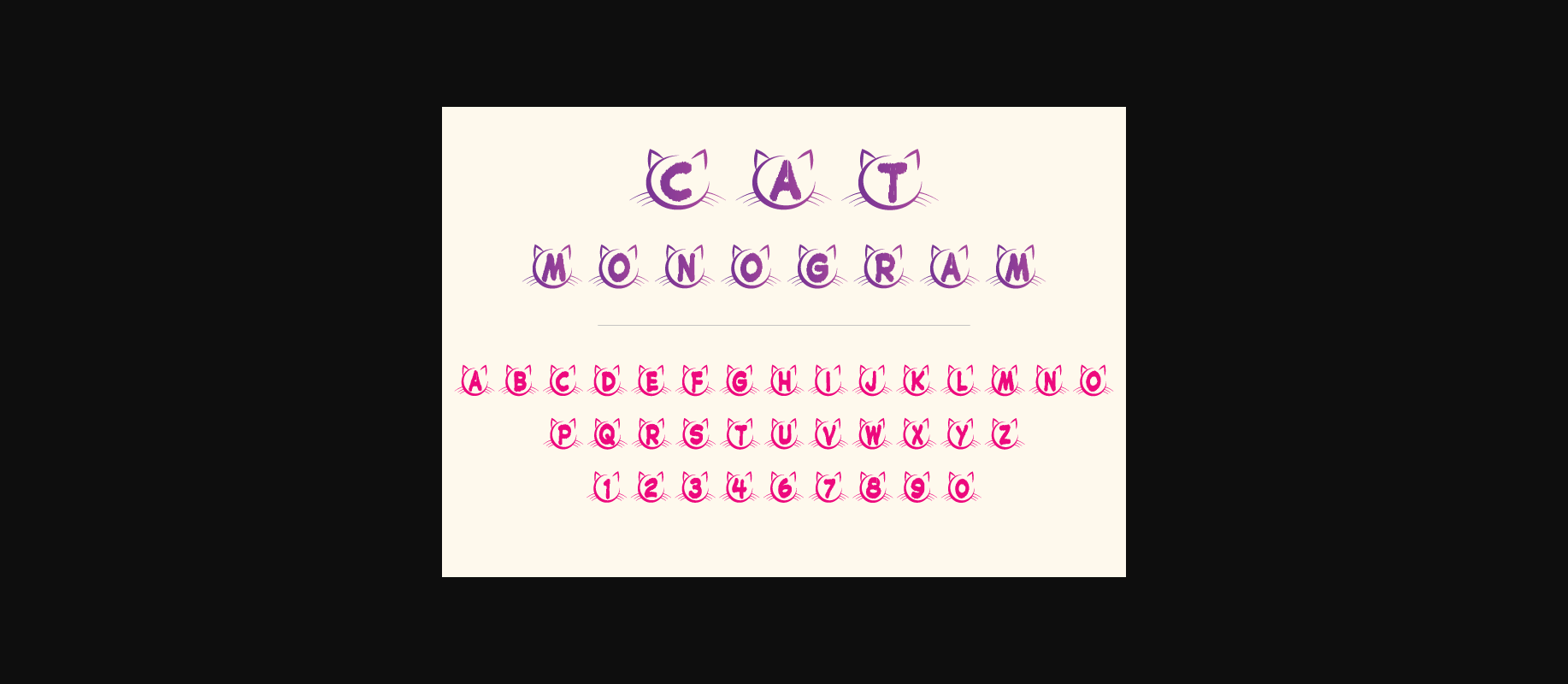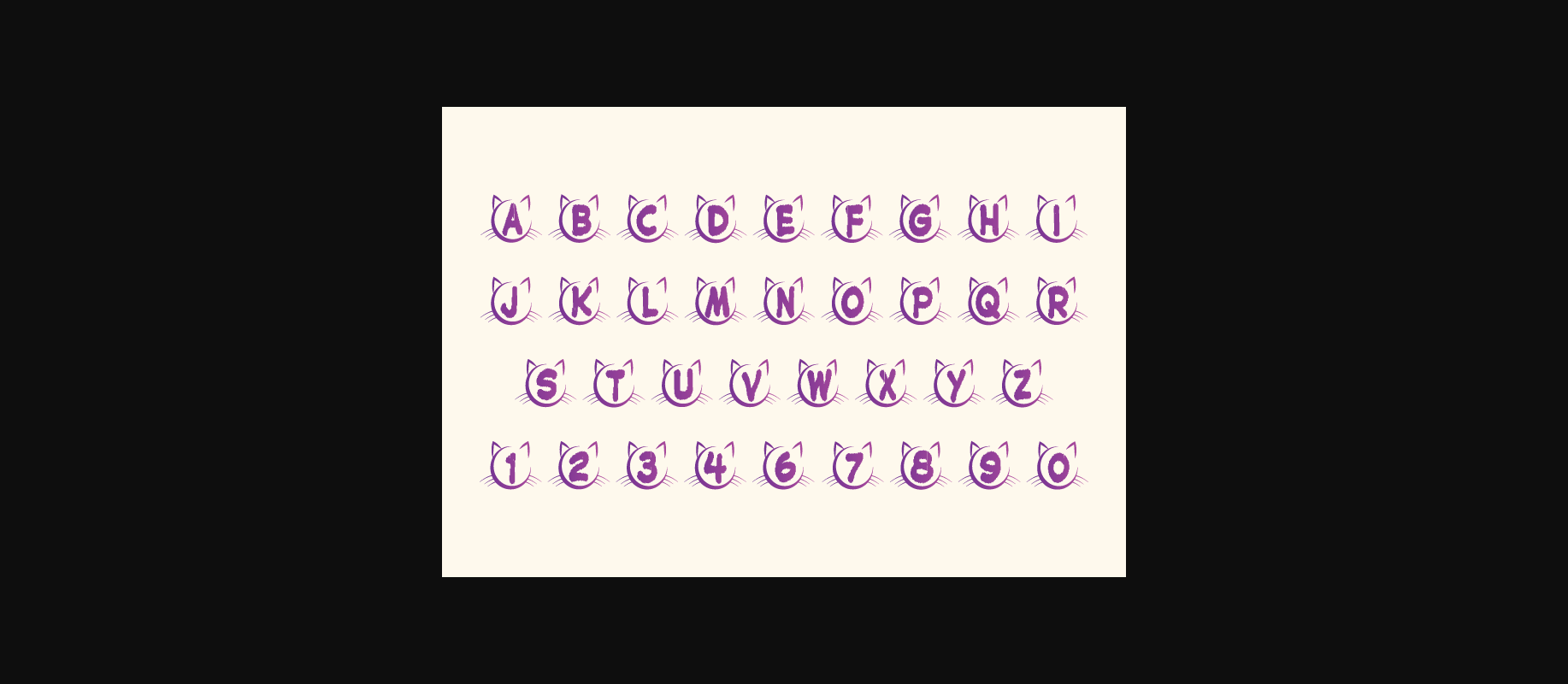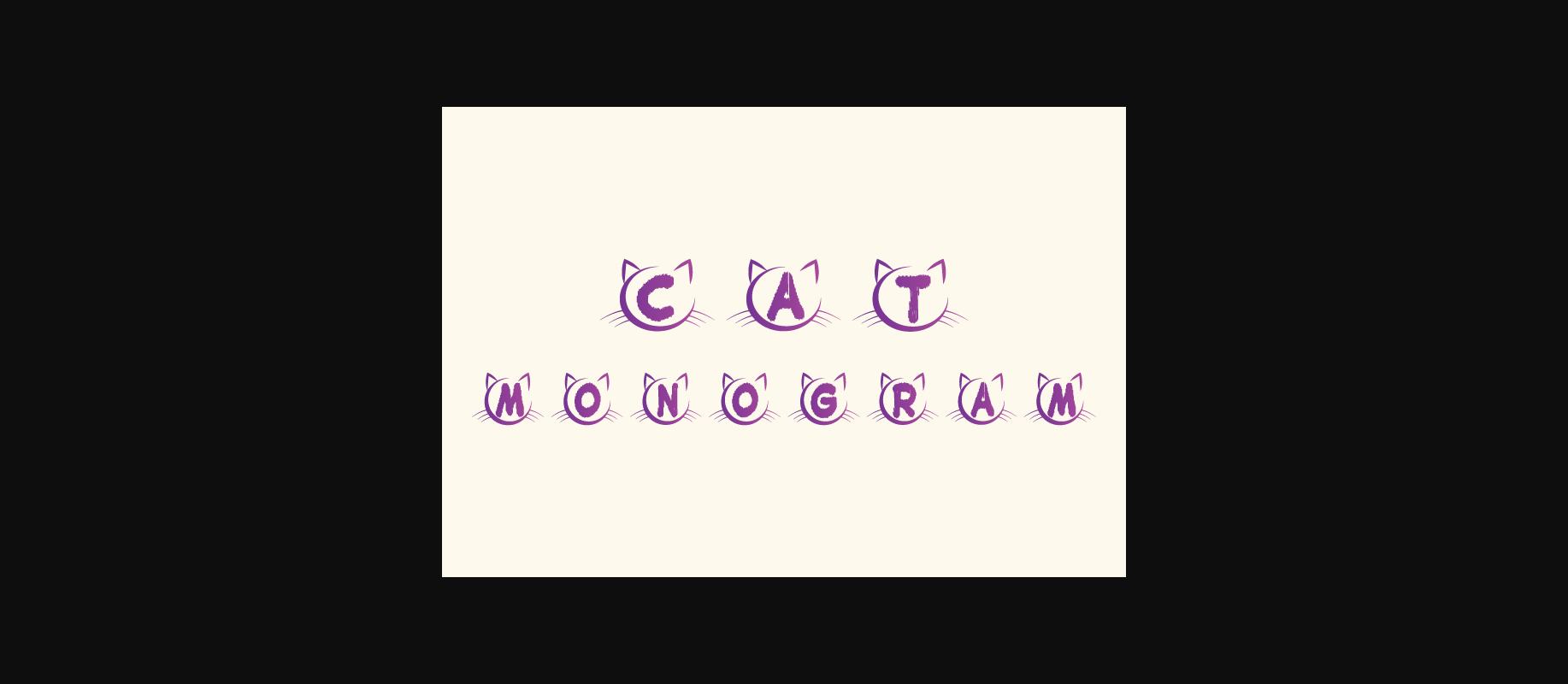
Cat Monogram is a happy font that will bring your design into a happy and fun mood. This font is perfect for branding, packaging, logotype, headline, wedding invitation, etc.